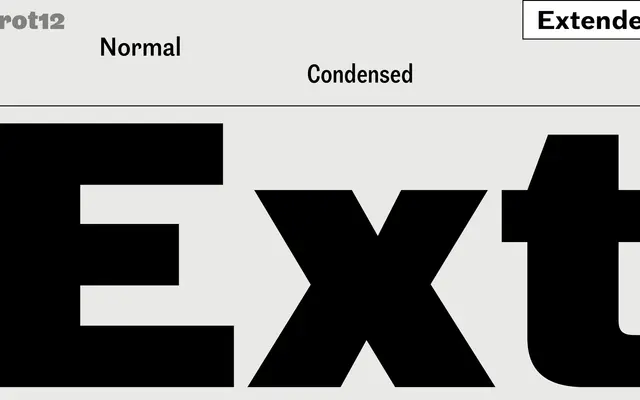
Grot12
A 42-style grotesque family drawing on Stephenson Blake's Victorian industrial type, offered in three widths from Condensed to Extended.
Rooted in the Stephenson Blake Grotesque series of the Industrial Revolution era, this is A2-Type's follow-up to their earlier Grot10 family. The three-width structure — Condensed, Normal and Extended — runs from Thin to Black with matching italics across all cuts, giving 42 styles in total. A workmanlike British grotesque with historical grounding, suited to editorial and identity use where a period-inflected sans is needed.
Directly inspired by Stephenson Blake's Victorian-era Grotesque series, placing it firmly in the British grotesque tradition with industrial-era letterform references. Three widths and a full weight range confirm the grotesque sans genre.